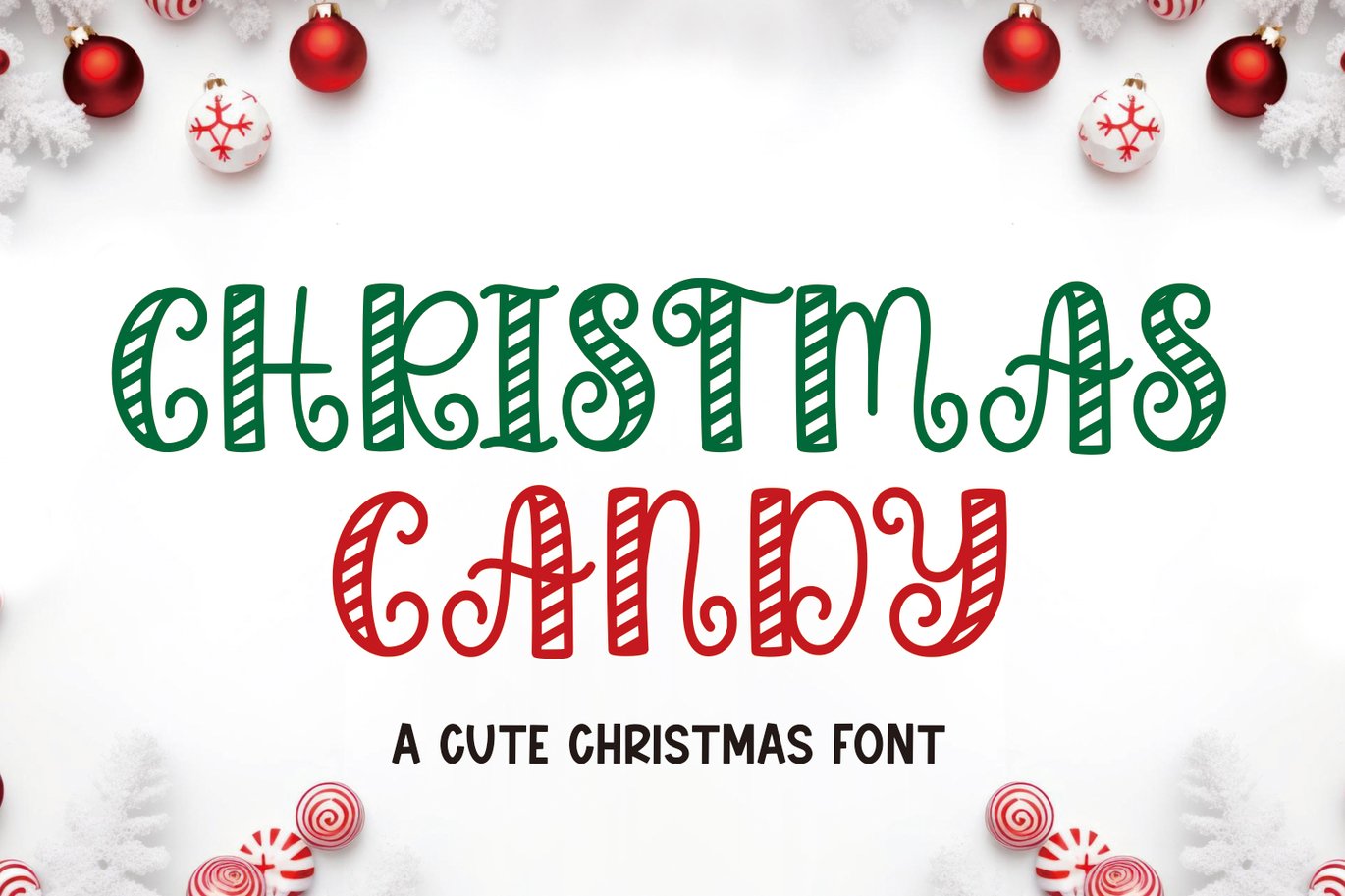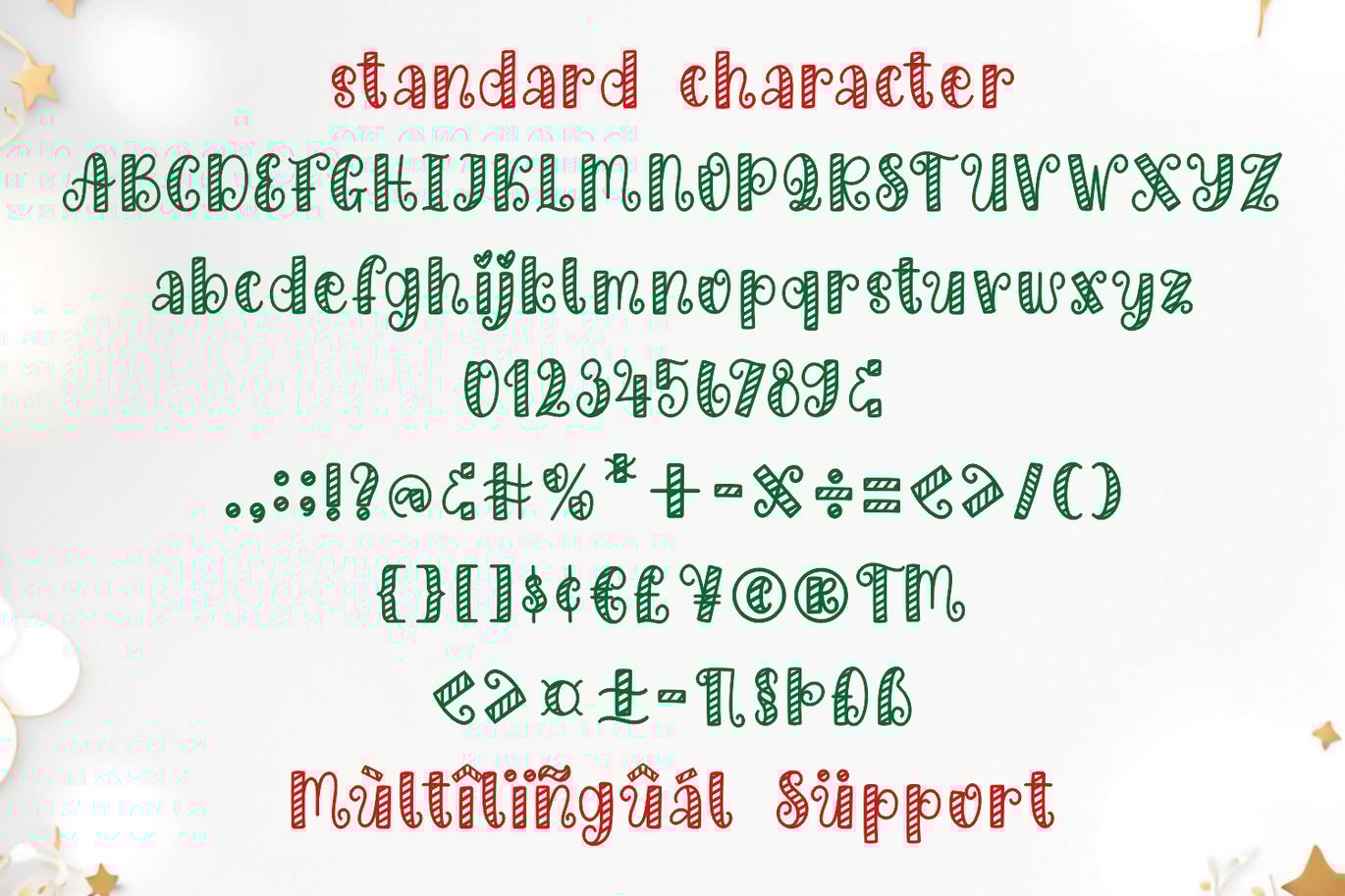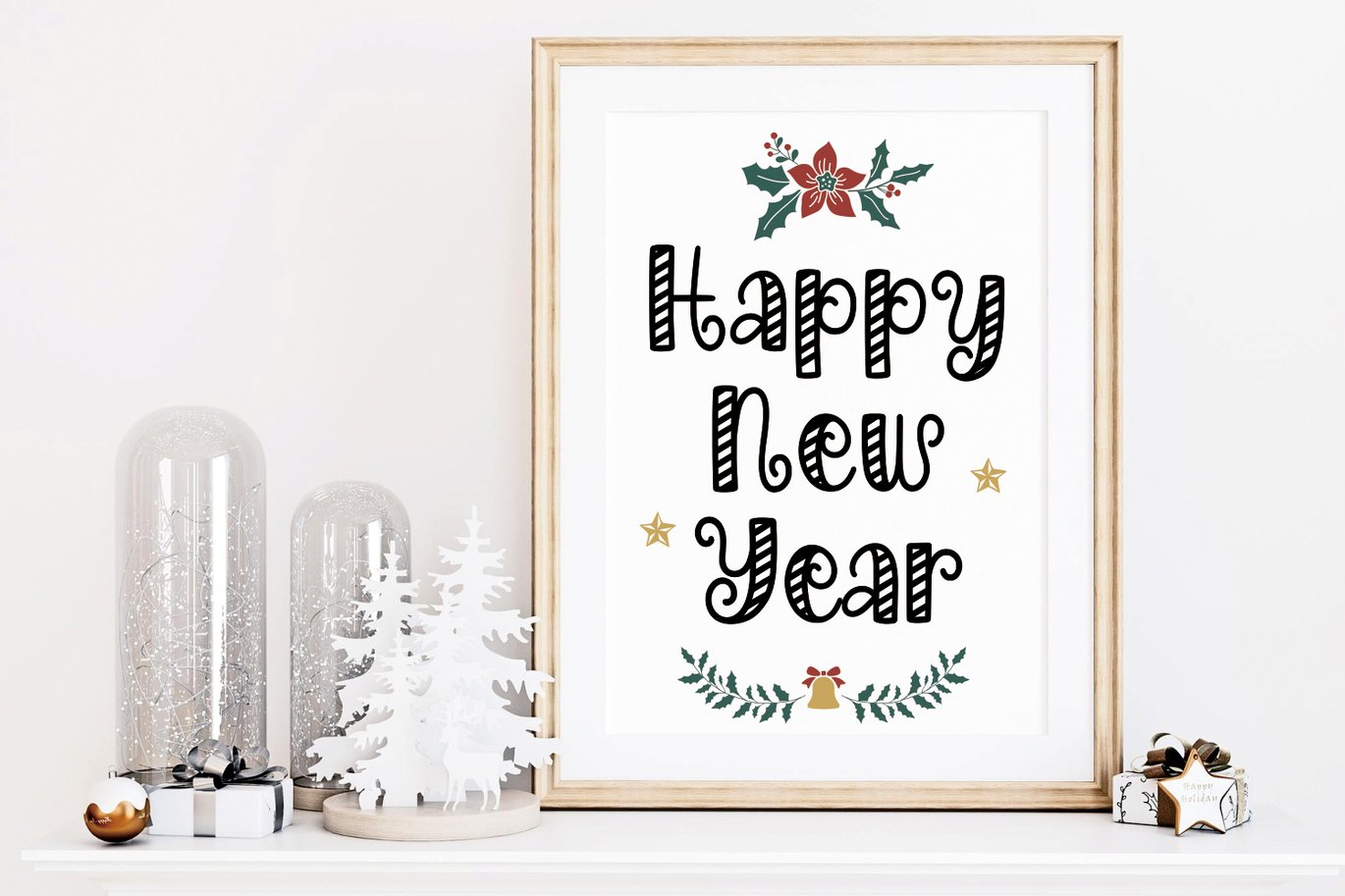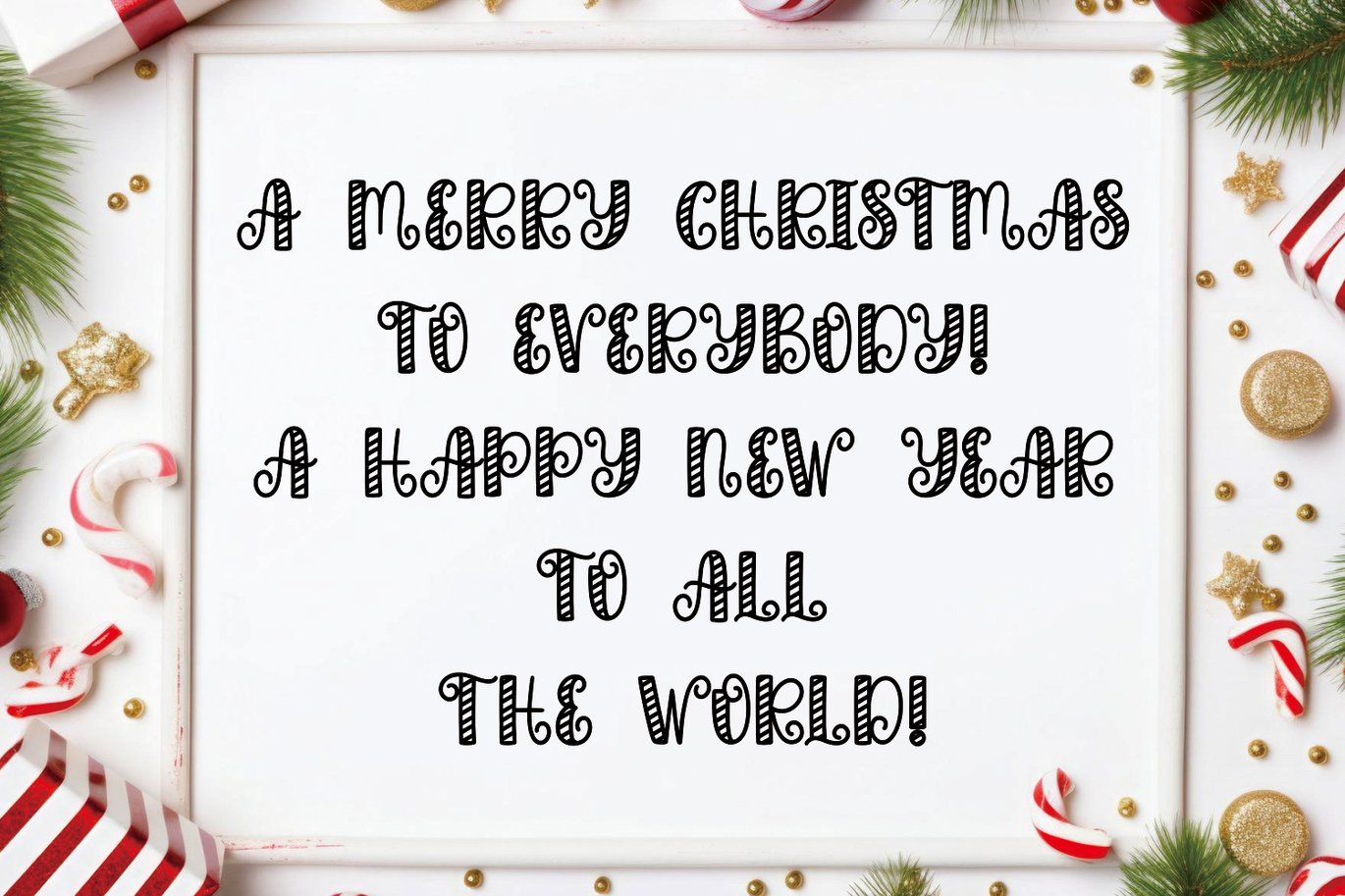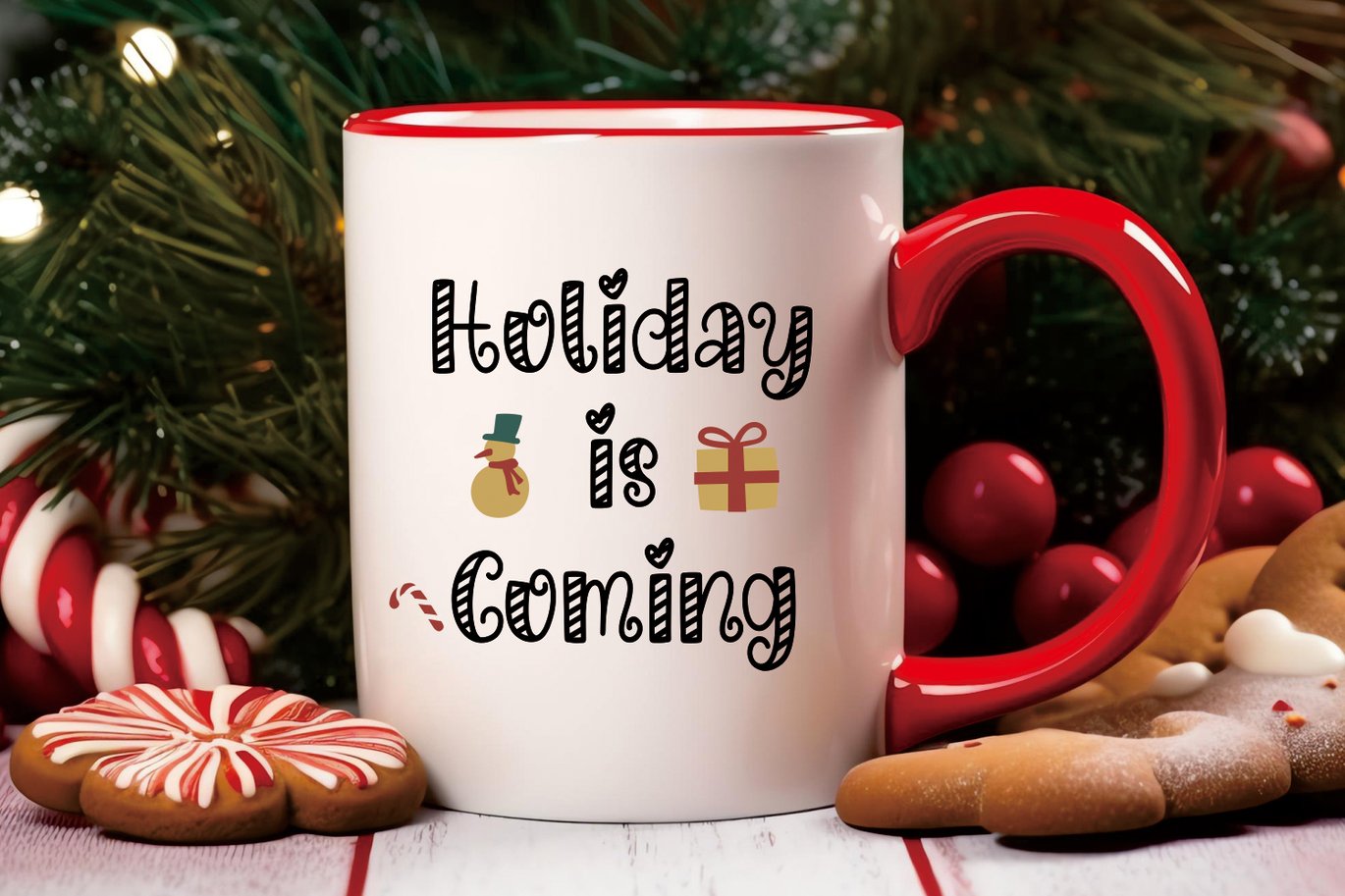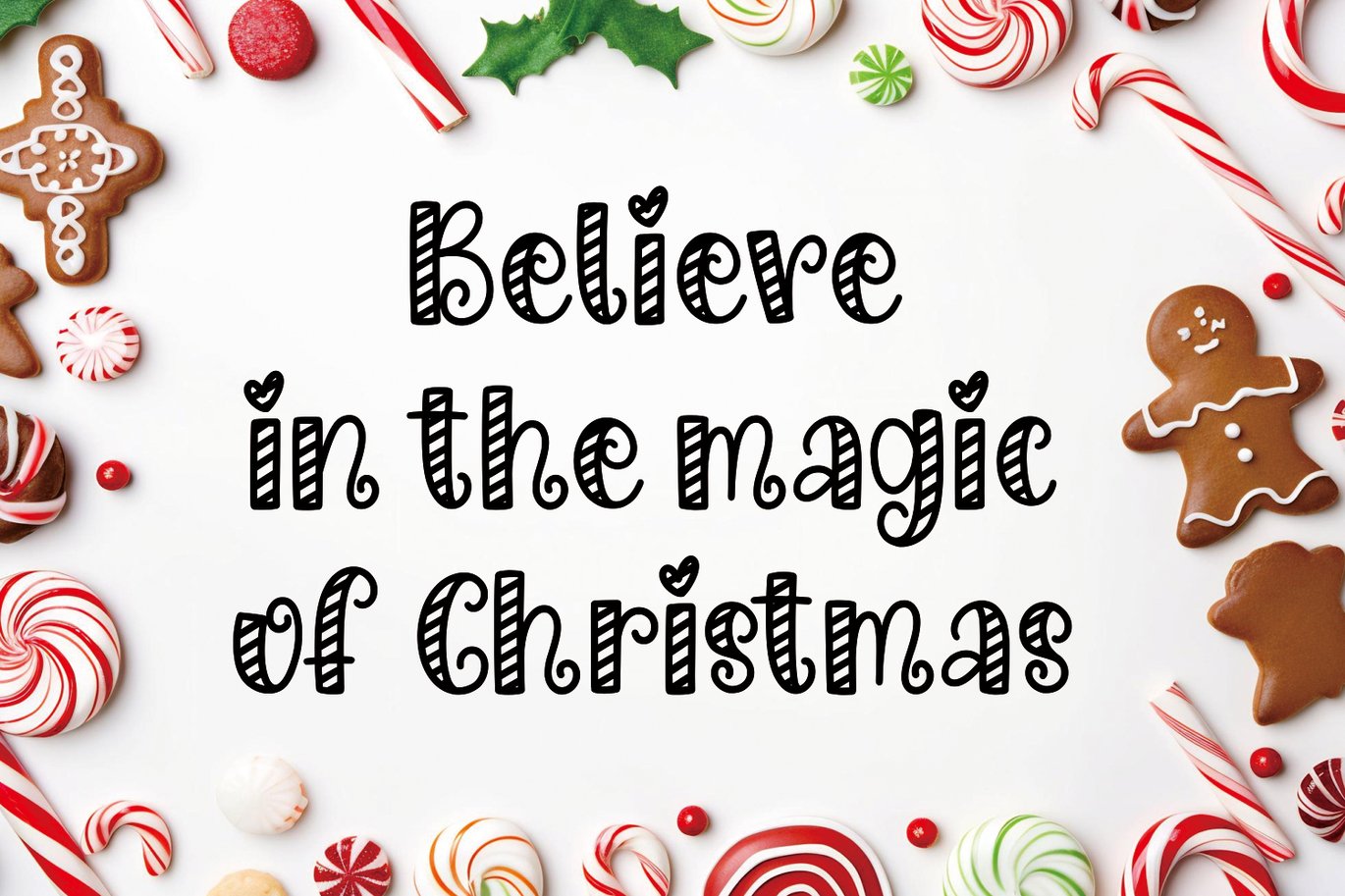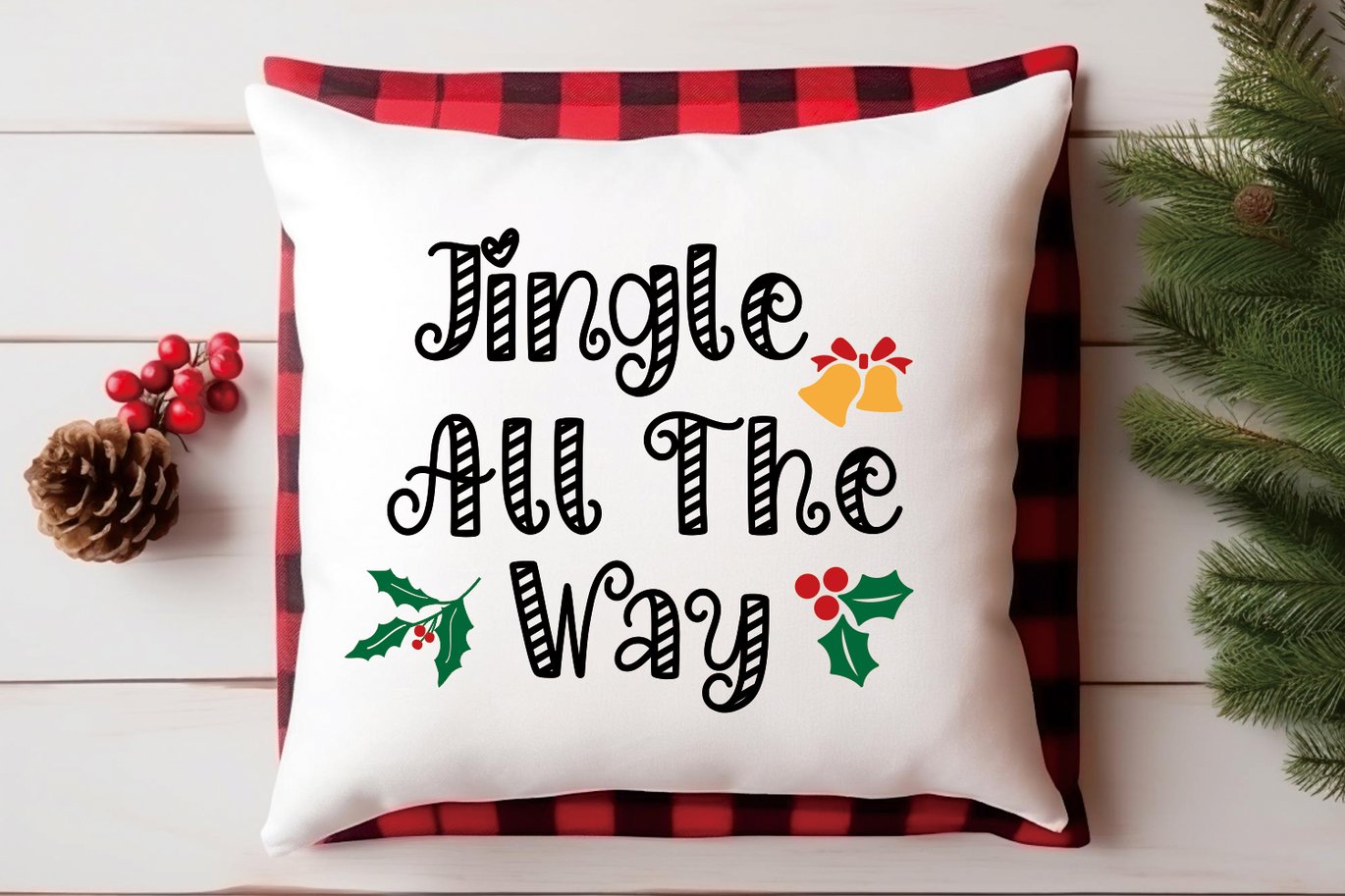
Christmas Candy – Christmas Font
The Christmas Candy is a delightful display font exuding a charming and festive vibe, perfectly suited for the themes of Christmas, holidays, Thanksgiving, crafts, Christmas greeting cards, decorations, craft lettering, and embroidery projects. This font is a whimsical blend of playful elements and a cute, decorative style that adds a touch of joy to any design.
Its letters are crafted with a playful flair, resembling the swirls of candy canes and the fun spirit of the holiday season. Each character is adorned with intricate details reminiscent of holiday decorations, evoking a sense of warmth and merriment. The font’s design captures the essence of the holiday season, making it an ideal choice for spreading cheer in various creative projects.
Whether used for crafting personalized greeting cards, adding a festive touch to decorations, or enhancing embroidery designs, the Christmas Candy font brings a sense of whimsy and festivity. Its unique style and decorative elements make it a perfect choice to infuse any project with the joyful spirit of Christmas and celebrations.